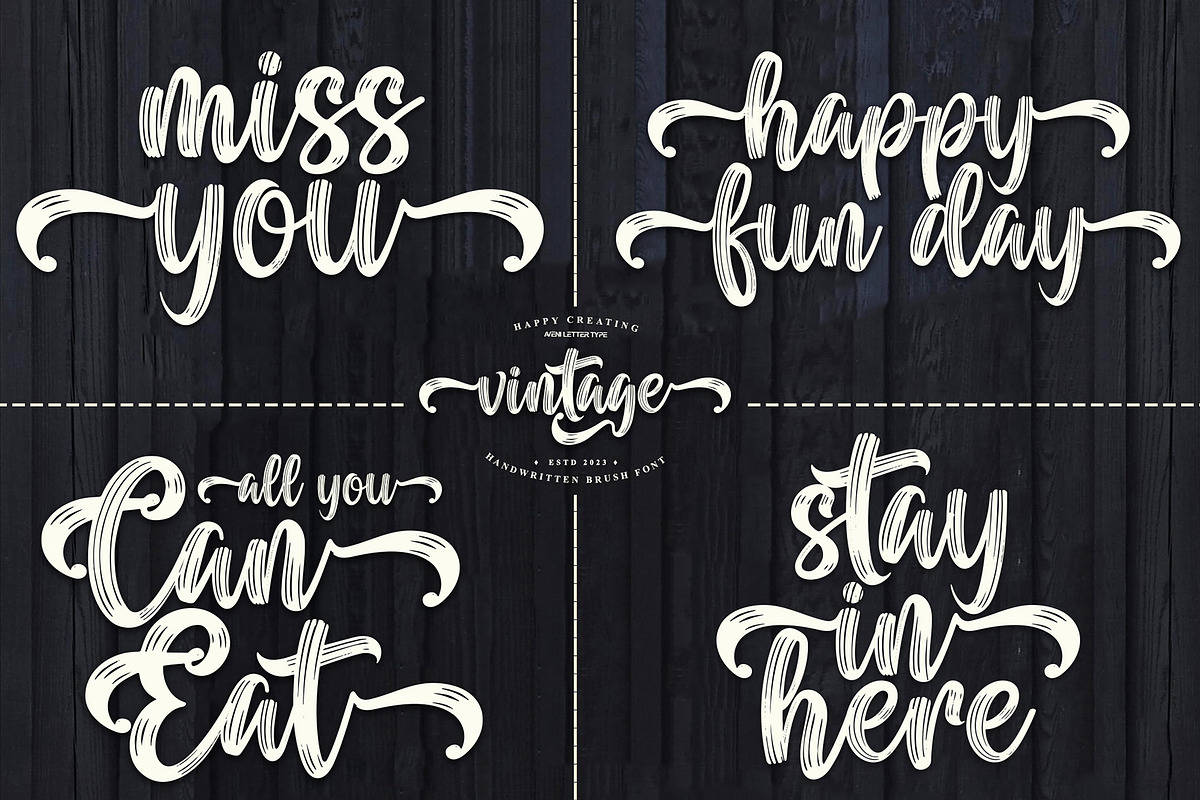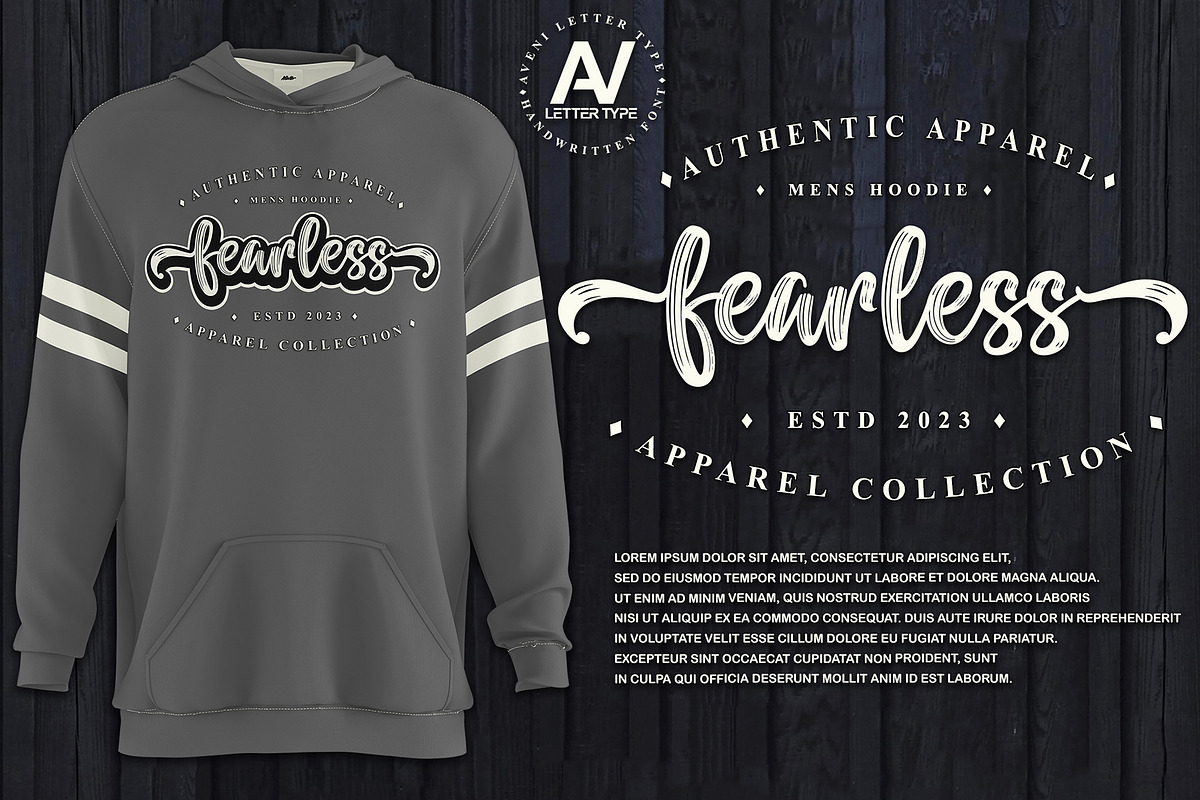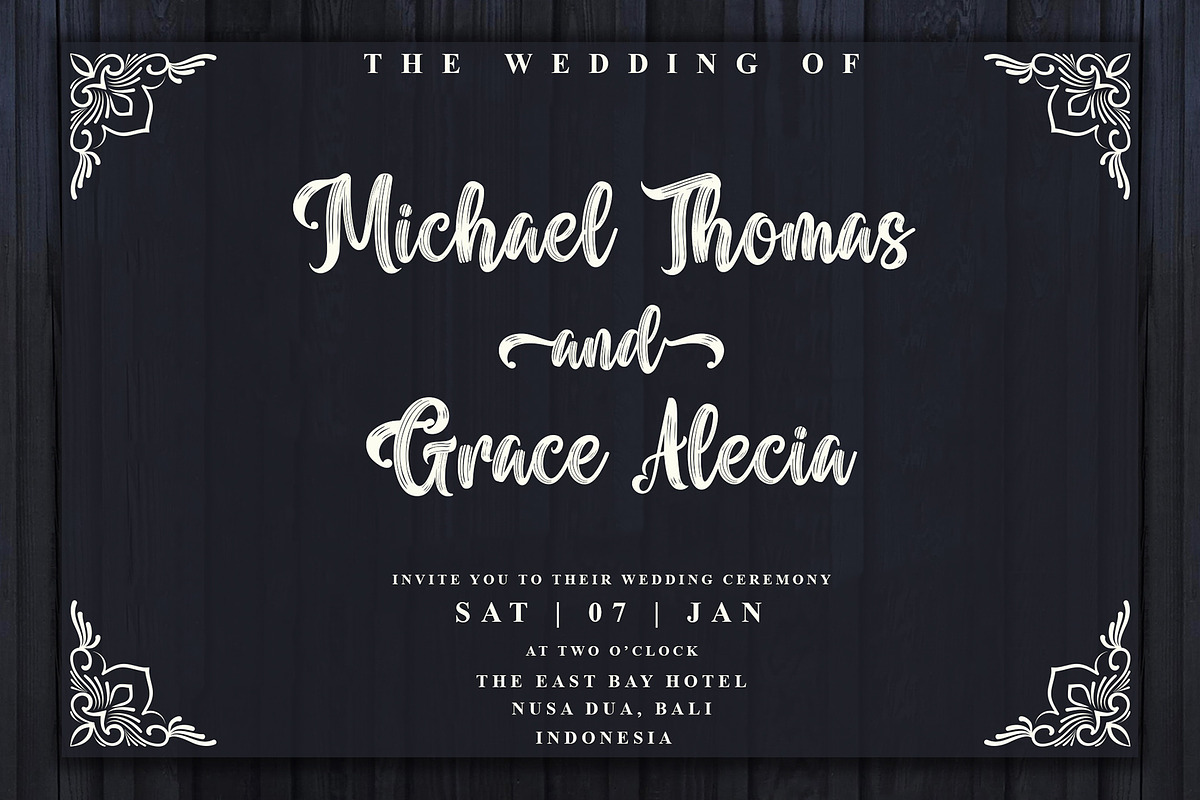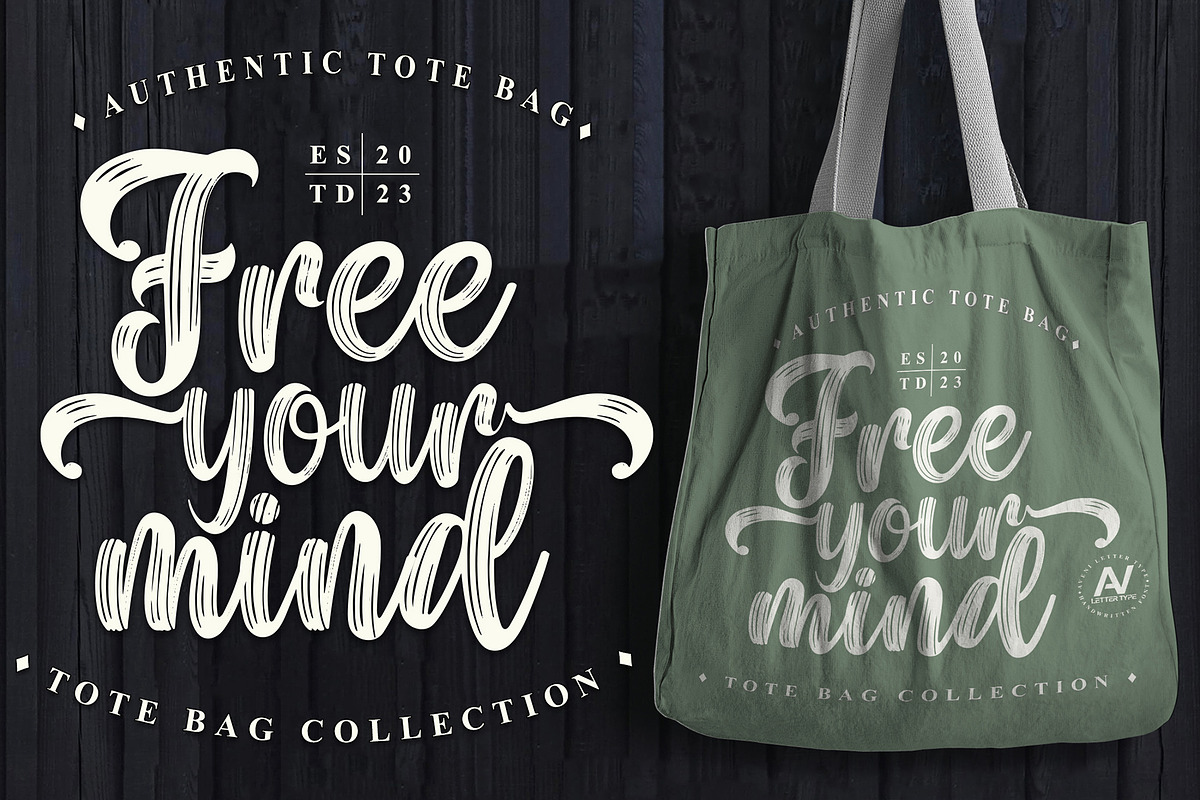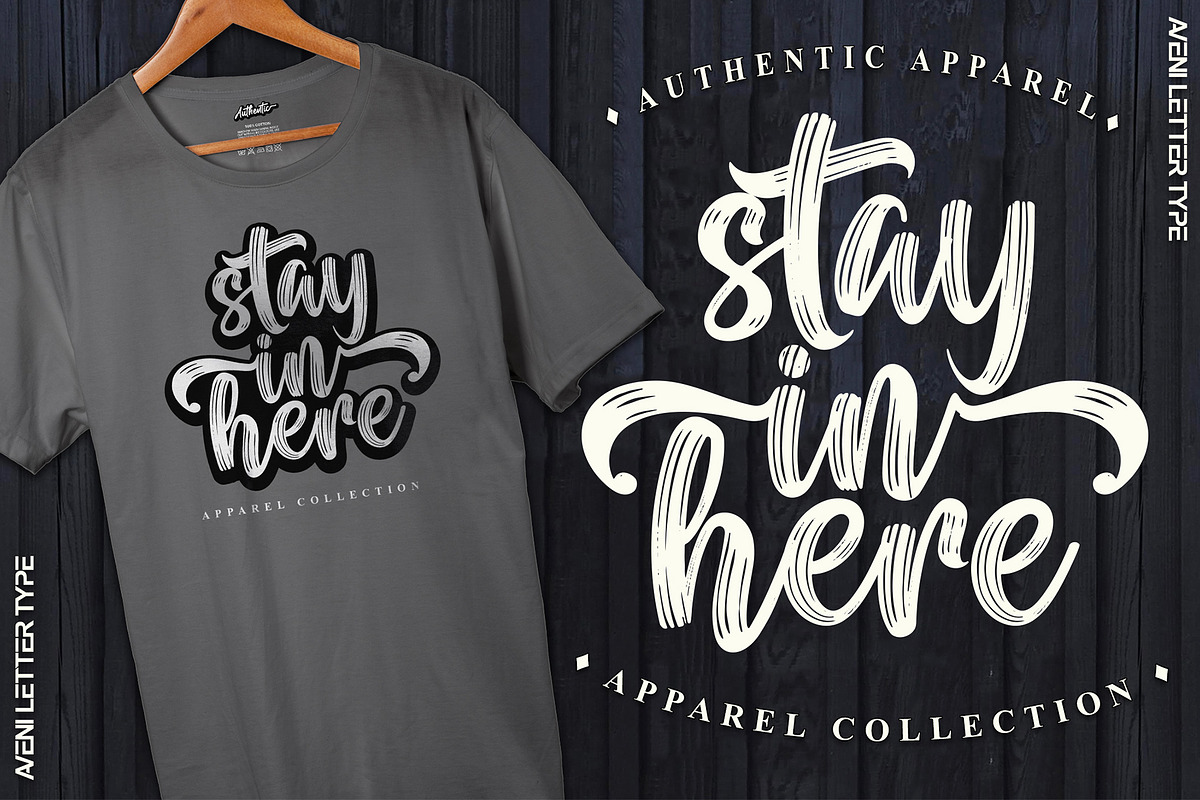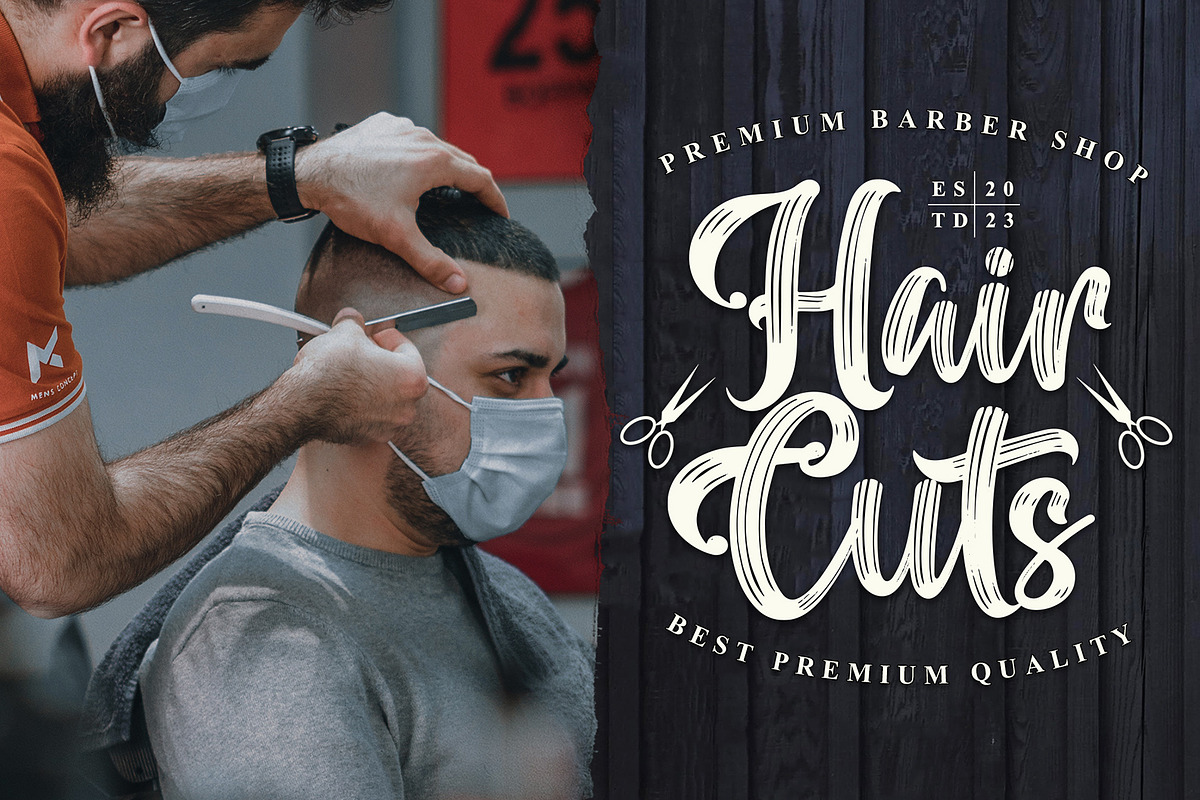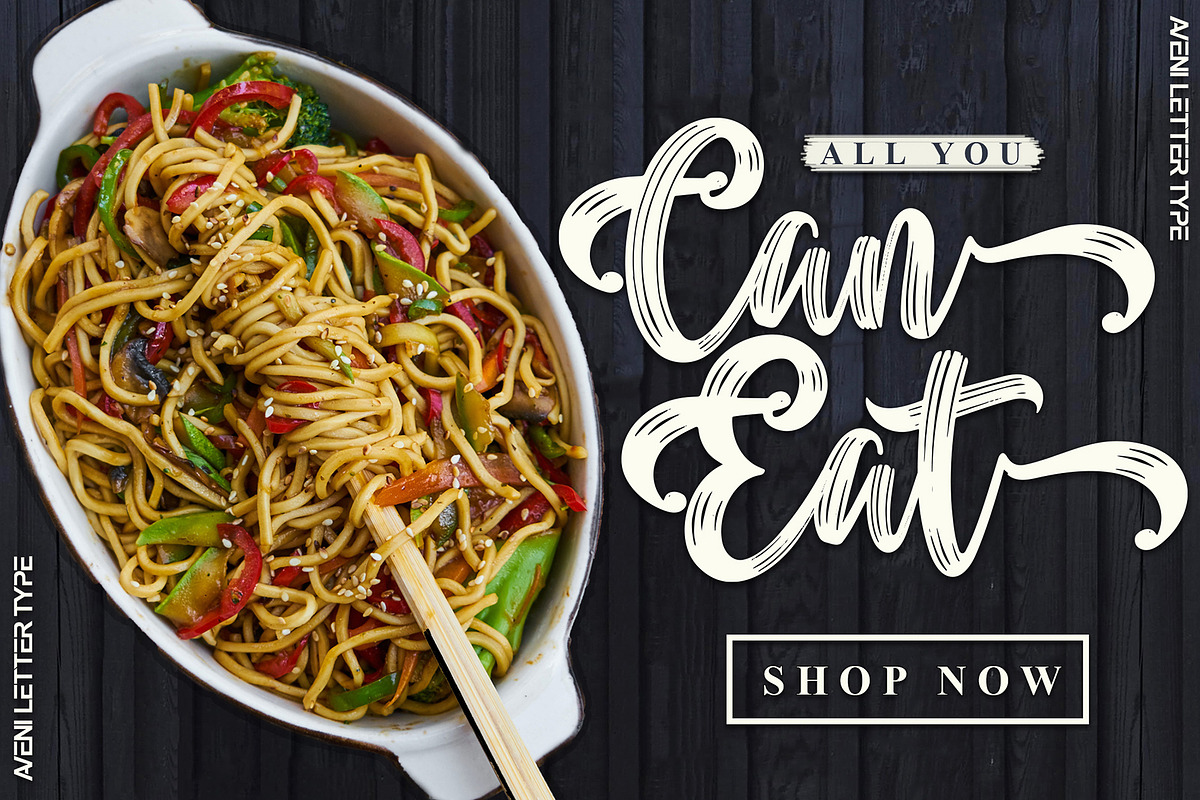
Vintage Handwritten Brush Font
Hi Guys, my name is Vintage, I was born with a handwritten font using a vintage-style brush but still elegant and has a very neat kerning. This font will look great in many projects, for example, you can use it for apparel branding, product packaging, posters, merchandise, store signage, social media, wedding invitations, and many more!
Numeral & Punctuation
Ligatures, and Multilingual
- Hi Guys, my name is Vintage, I was born with a handwritten font using a vintage-style brush but still elegant and has a very neat kerning.
Vintage Handwritten Brush Font by Aveni Letter Type fits naturally into Branding, posters, packaging, typography.